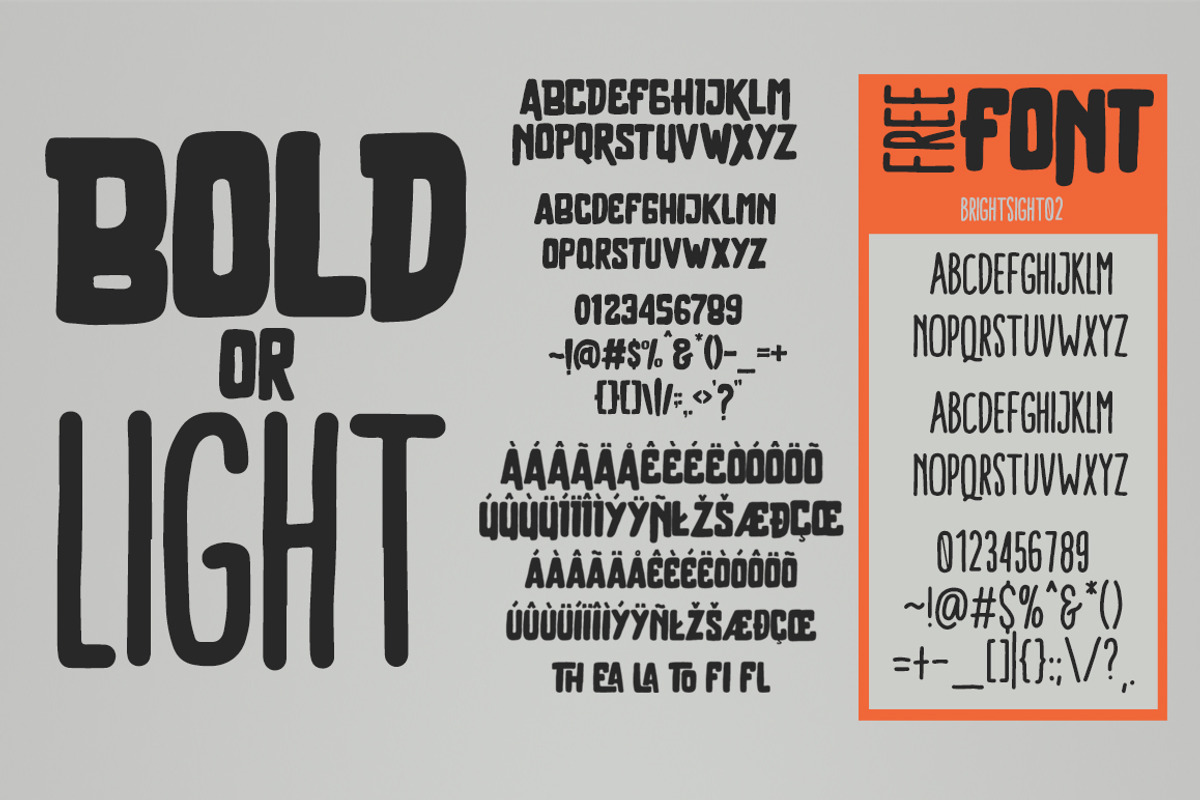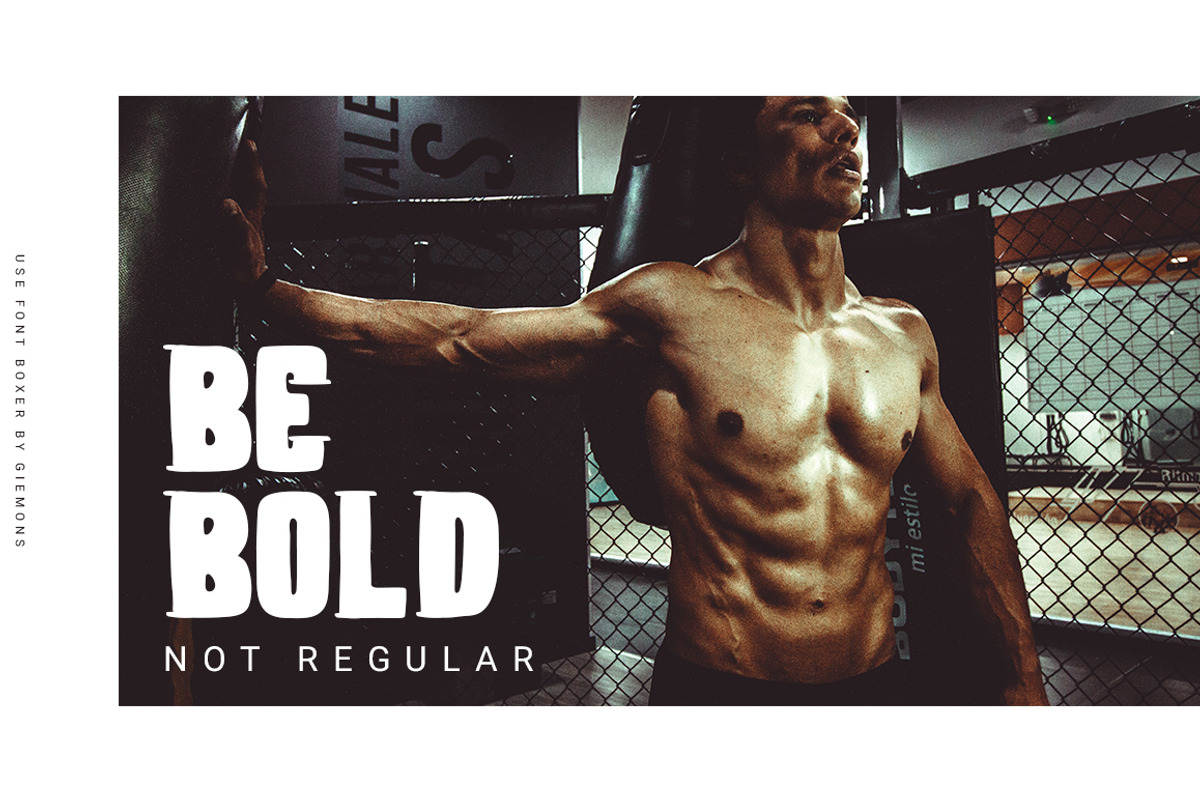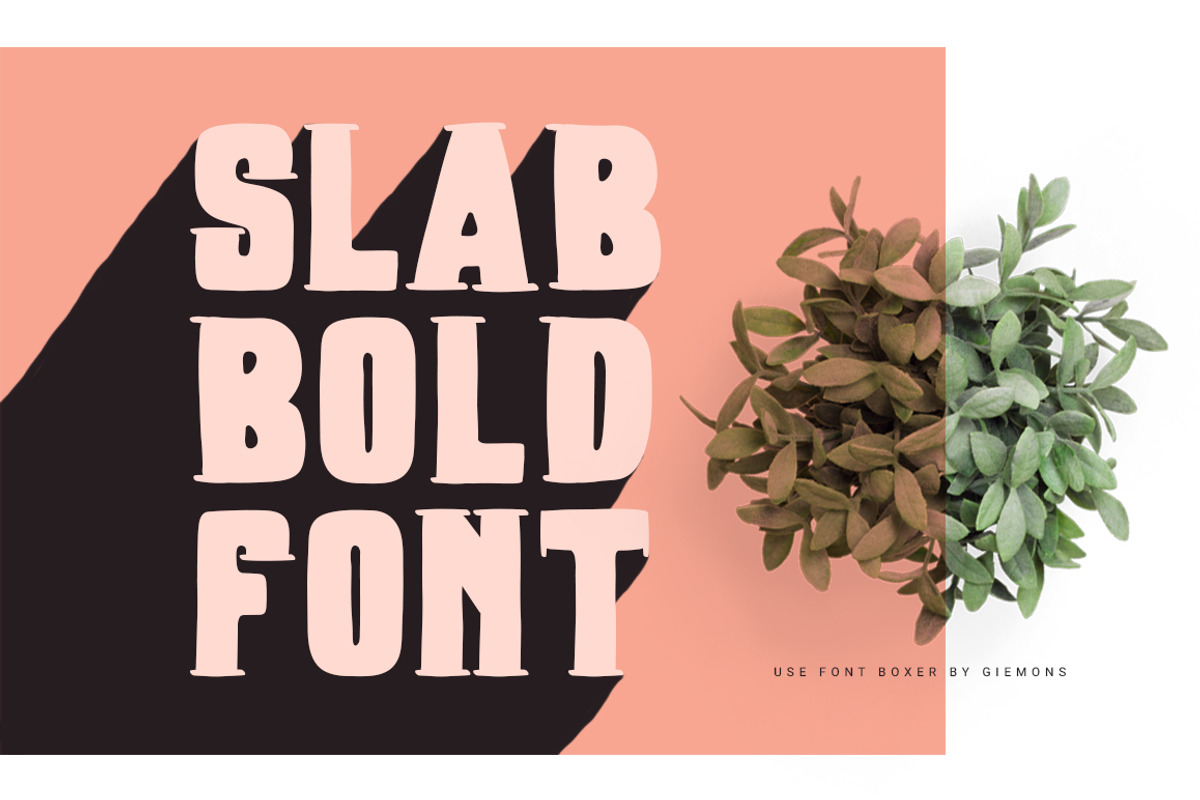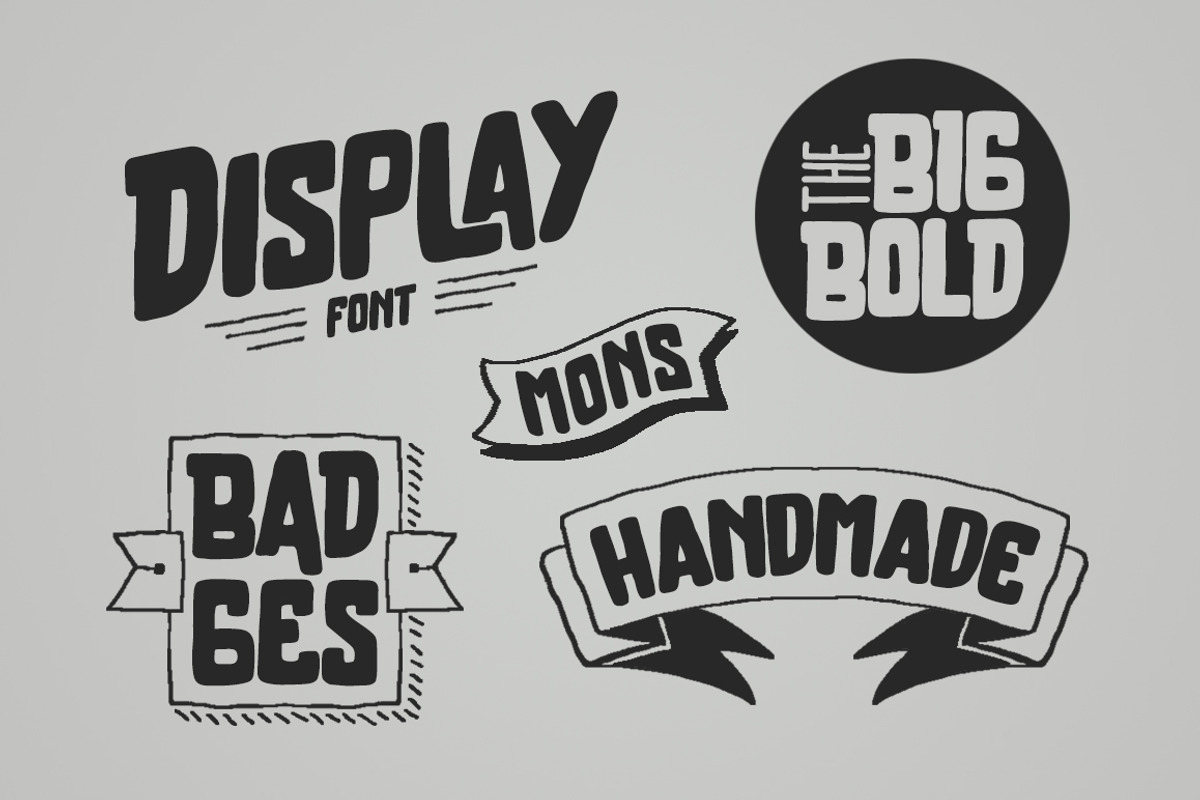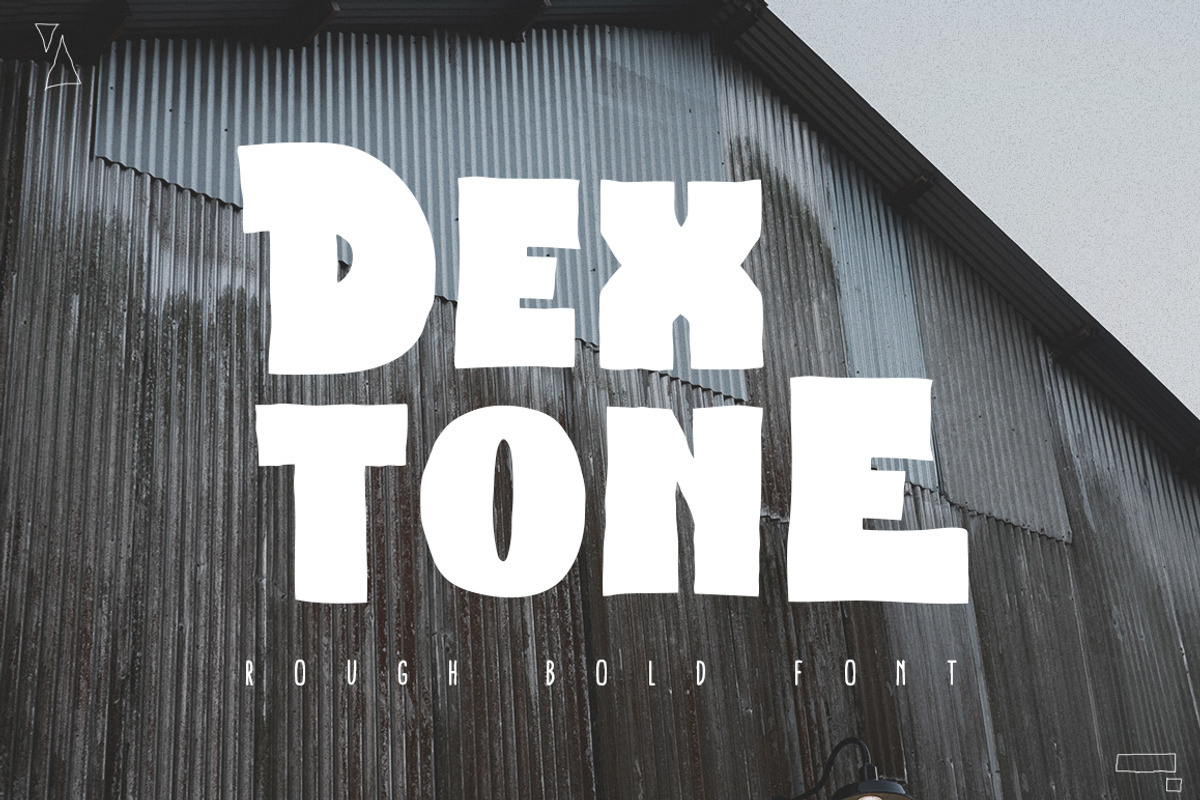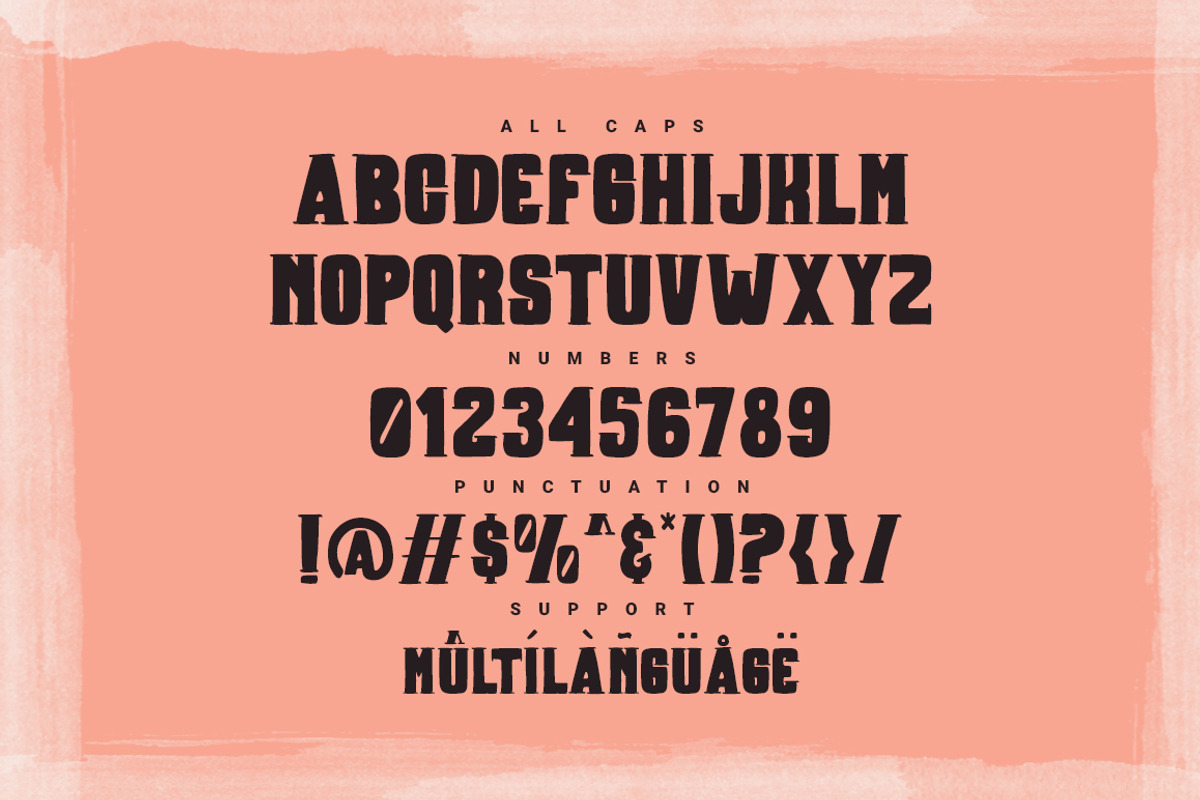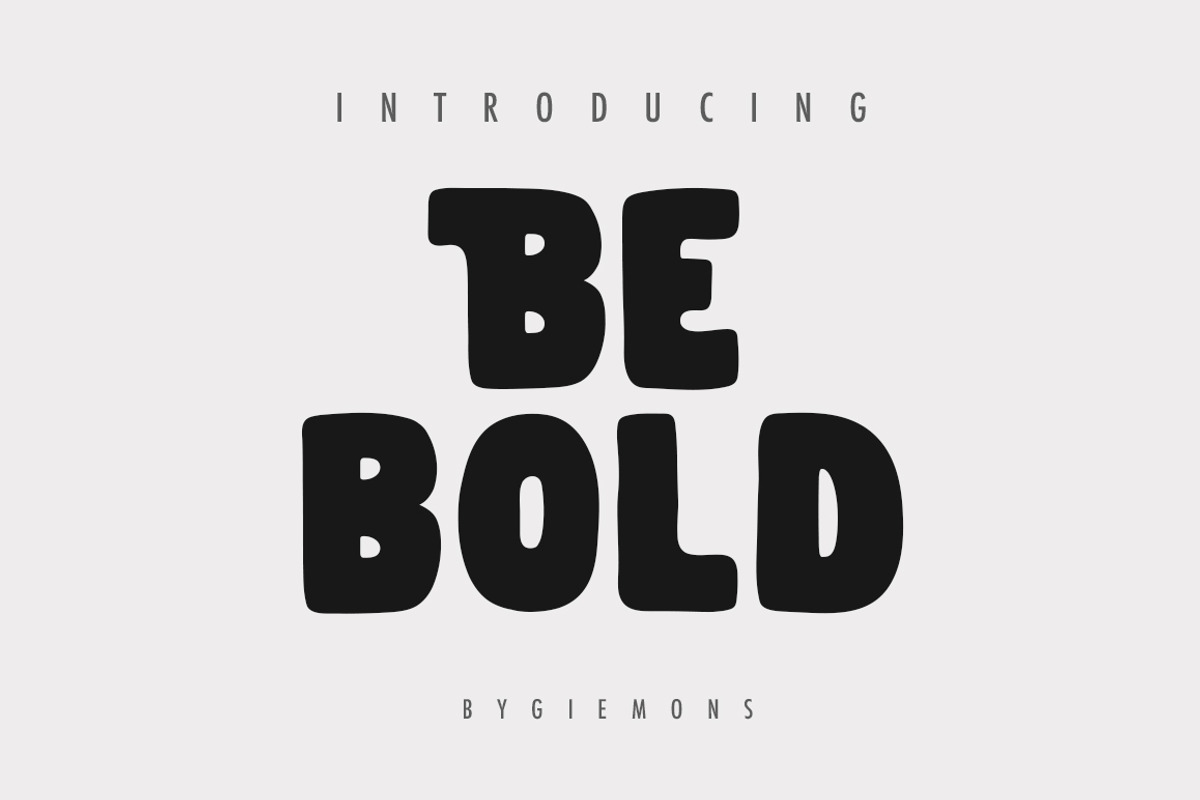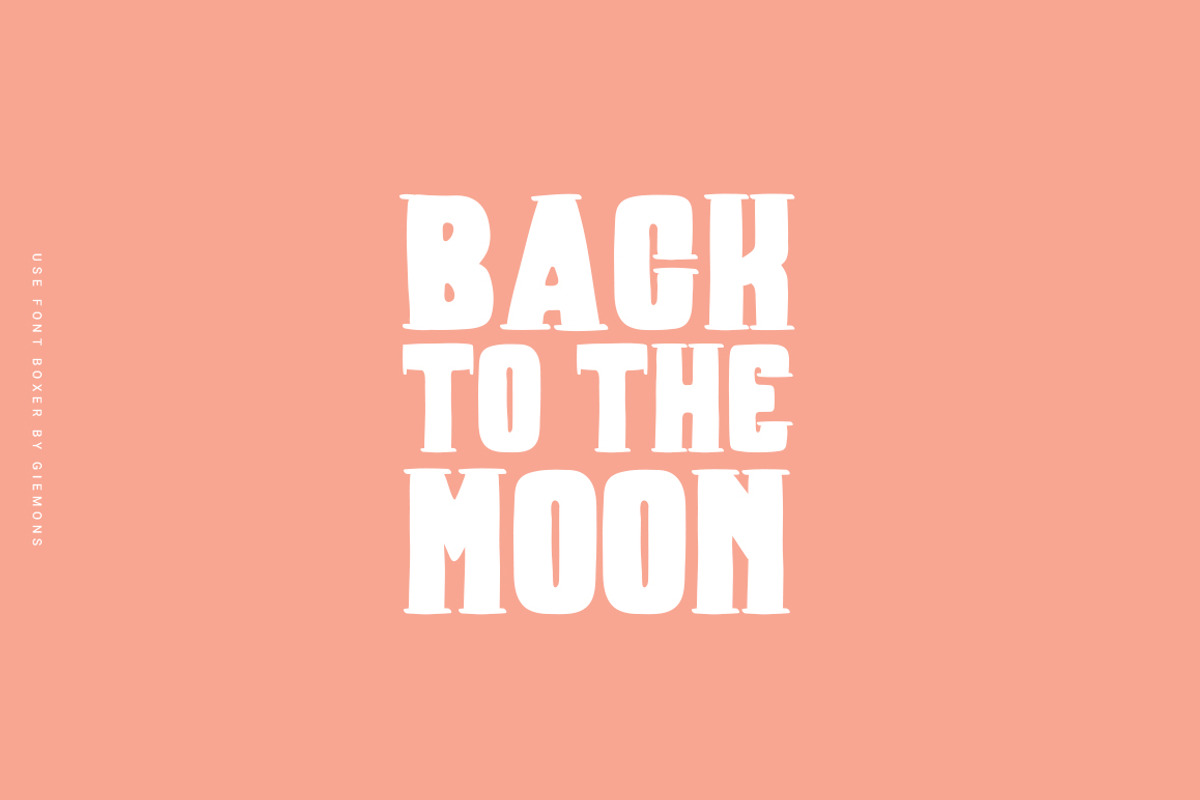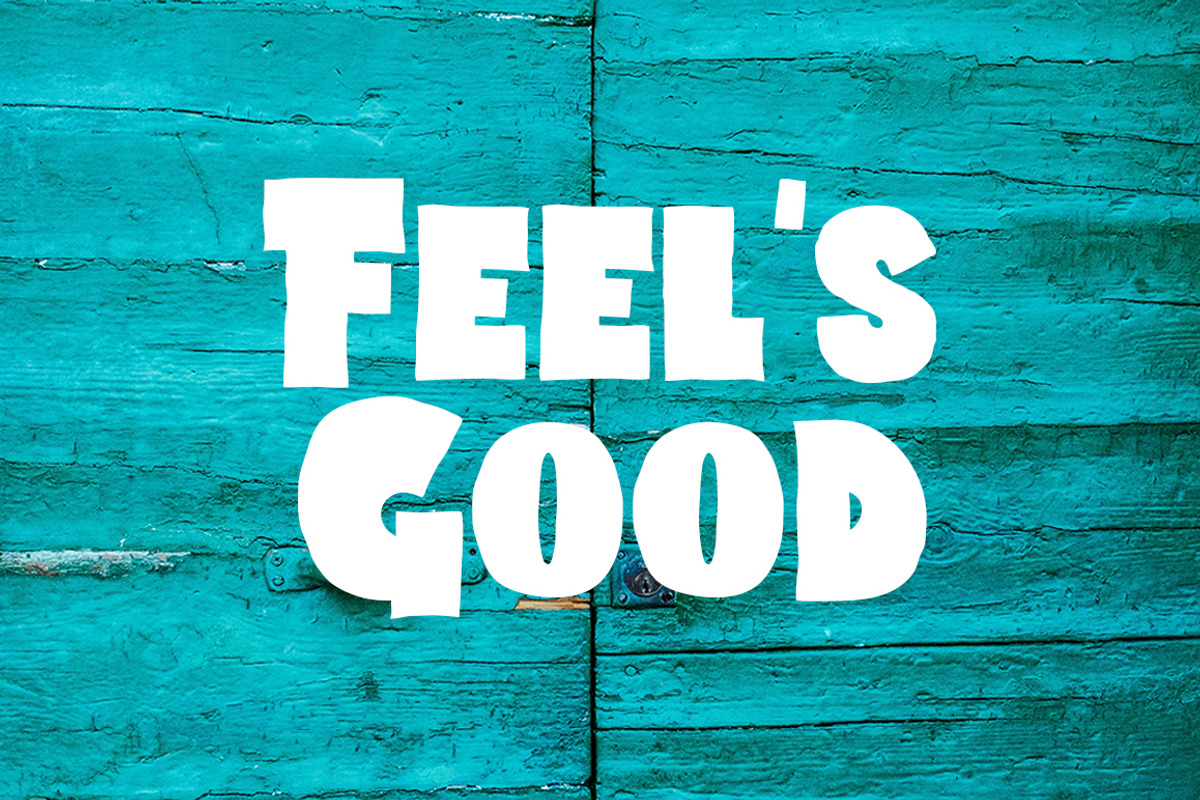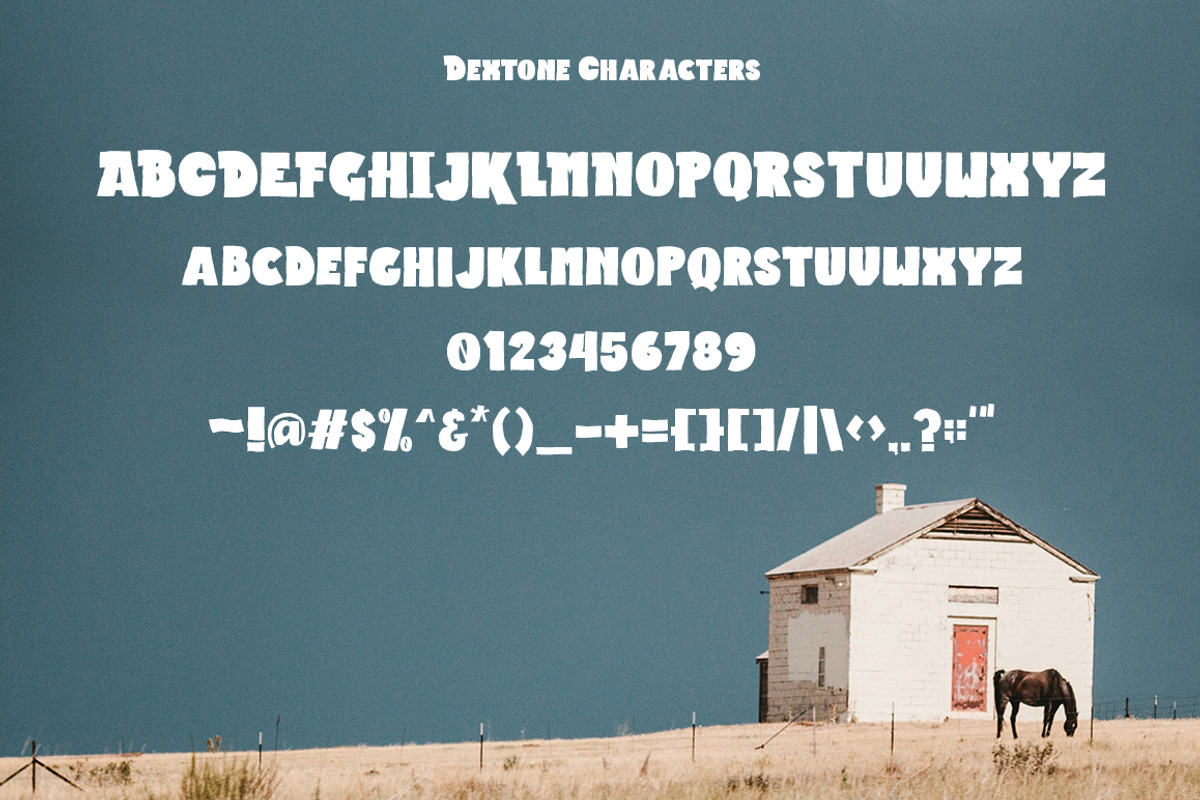
The Bold Font Bundle
Produly present The Bold Font Bundle at the end of this year, this font bundle selection is very supportive for use in 2020, because next year the font selection will use the BOLD type font. here I combine 4 fonts in one purchase so that it makes you have the choice to be used in the design / advertisement that you make. this is include Commercial use license. I hope this font can help you in the selection of fonts that you will use.
inside The Bold Font Bundle :
- Stylistic Uppercase
- Stylistic lowercase
- Uppercases & Lowercases
- Multi Language Support
- All Caps